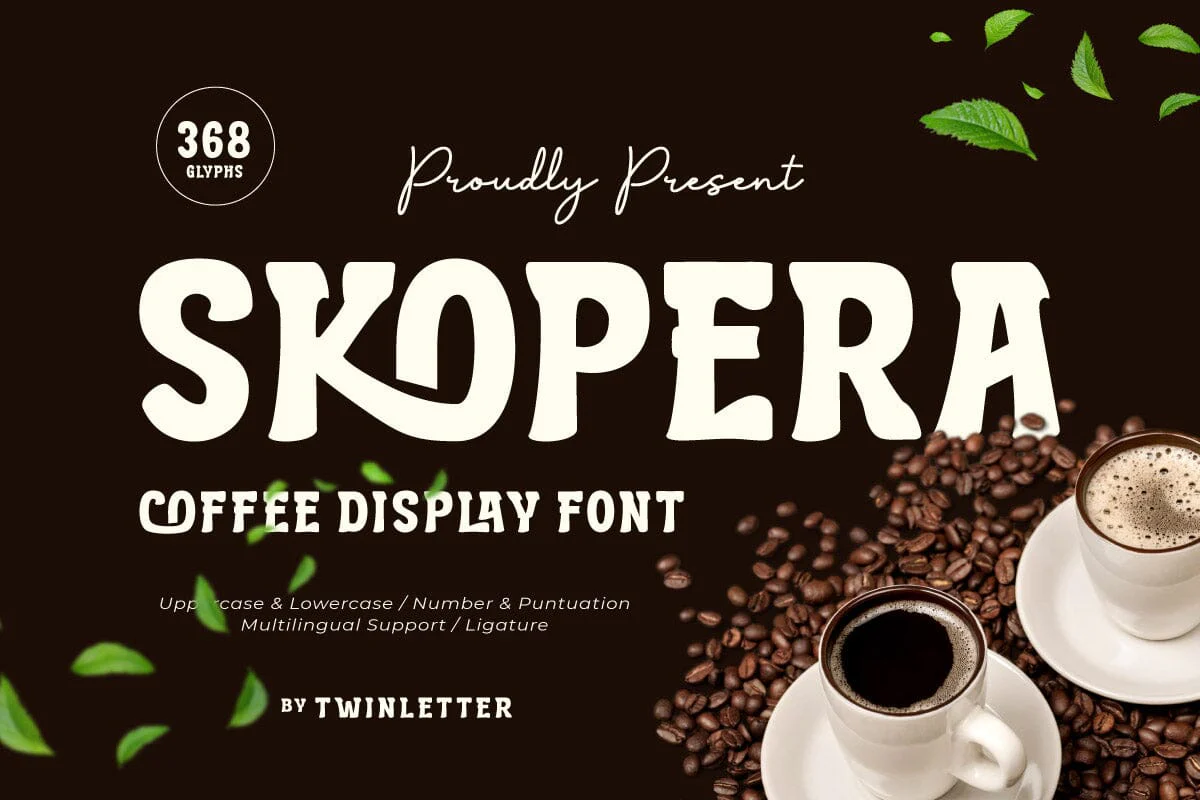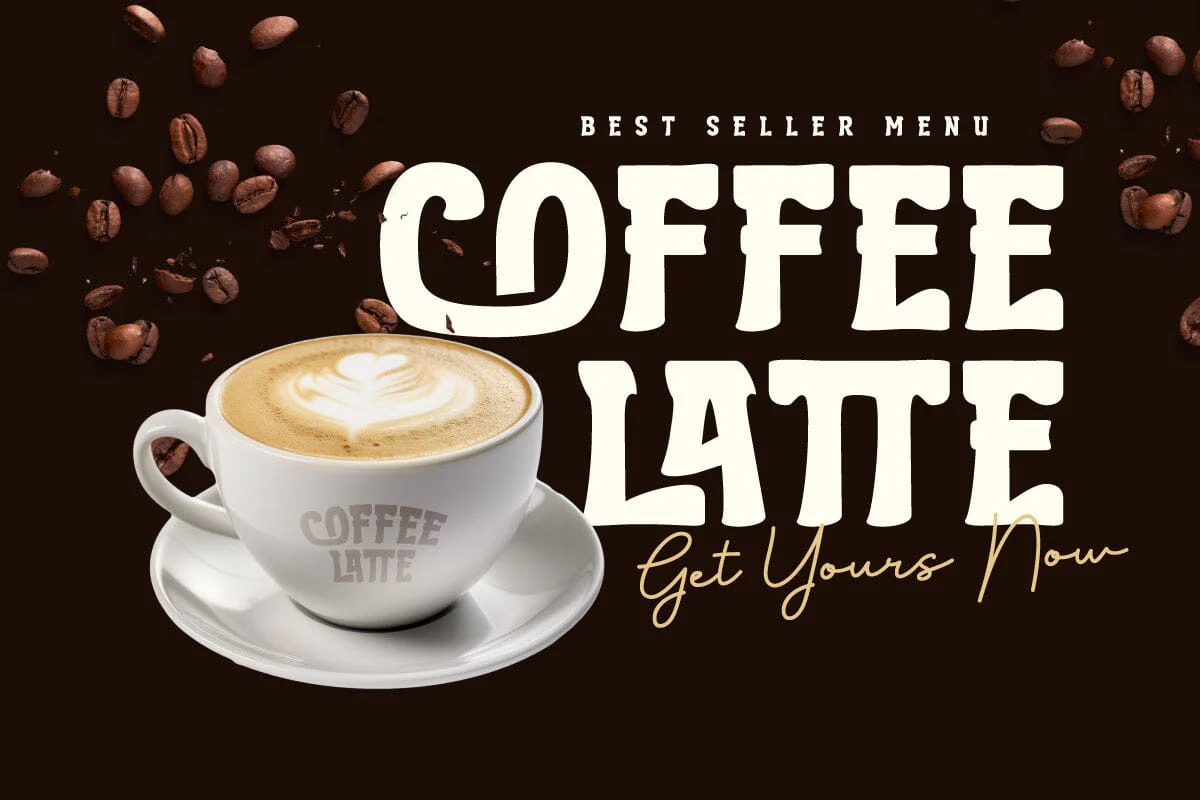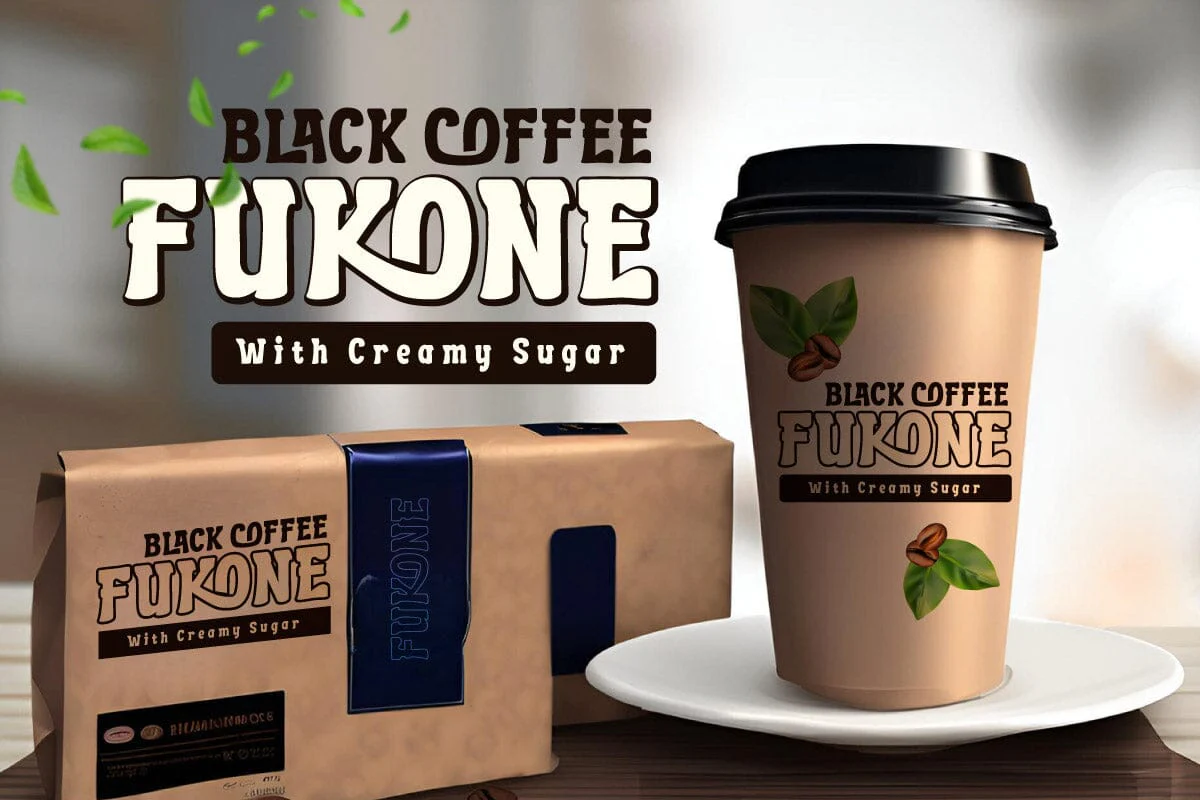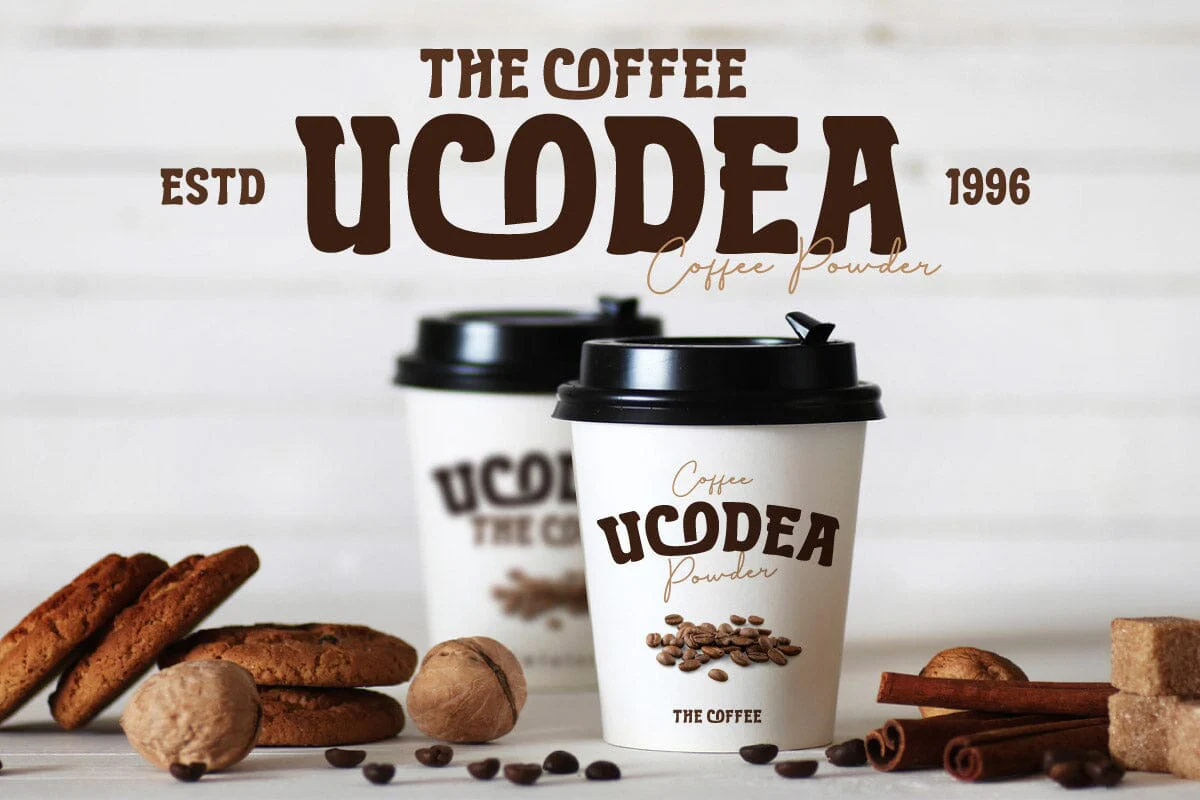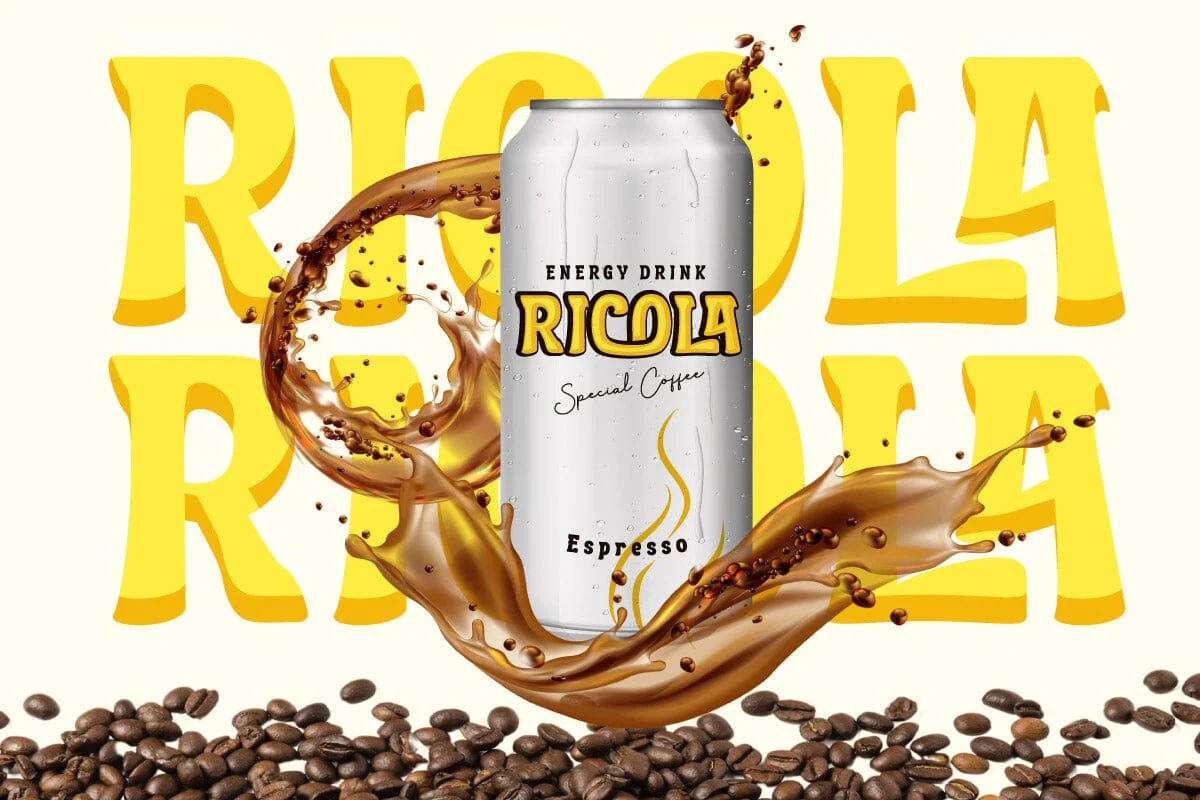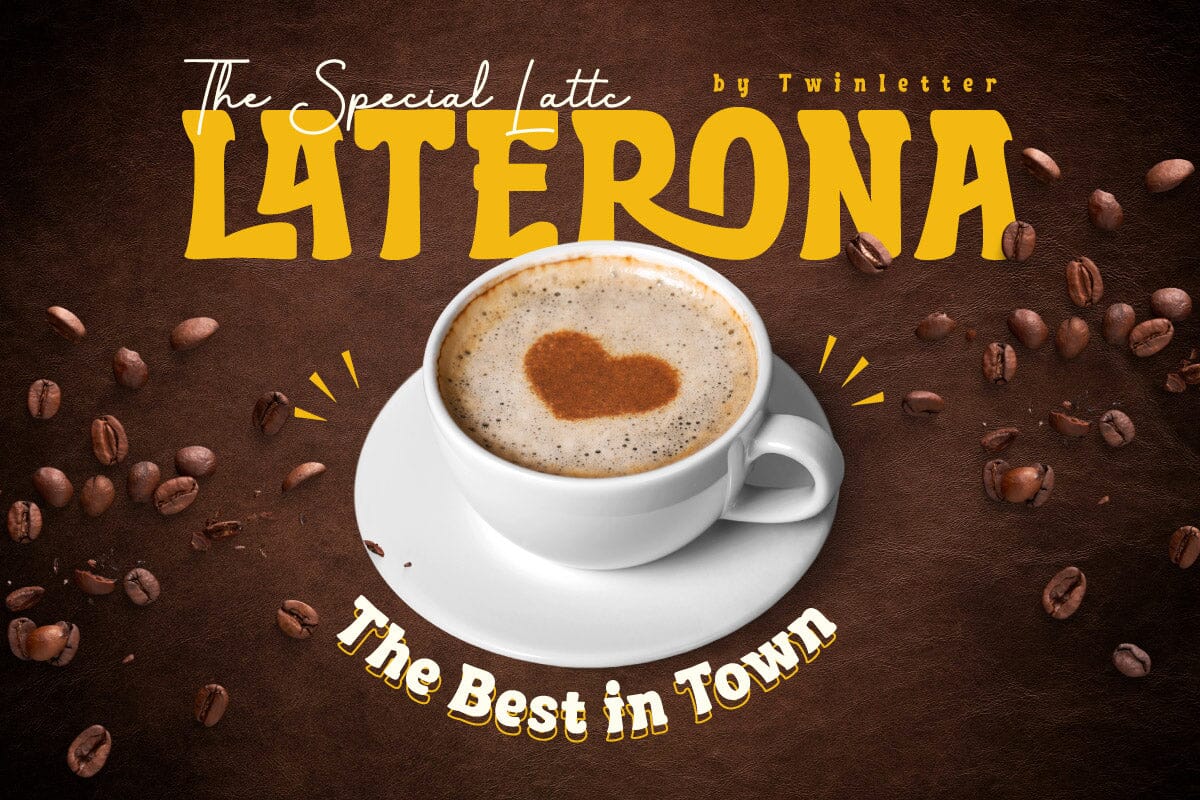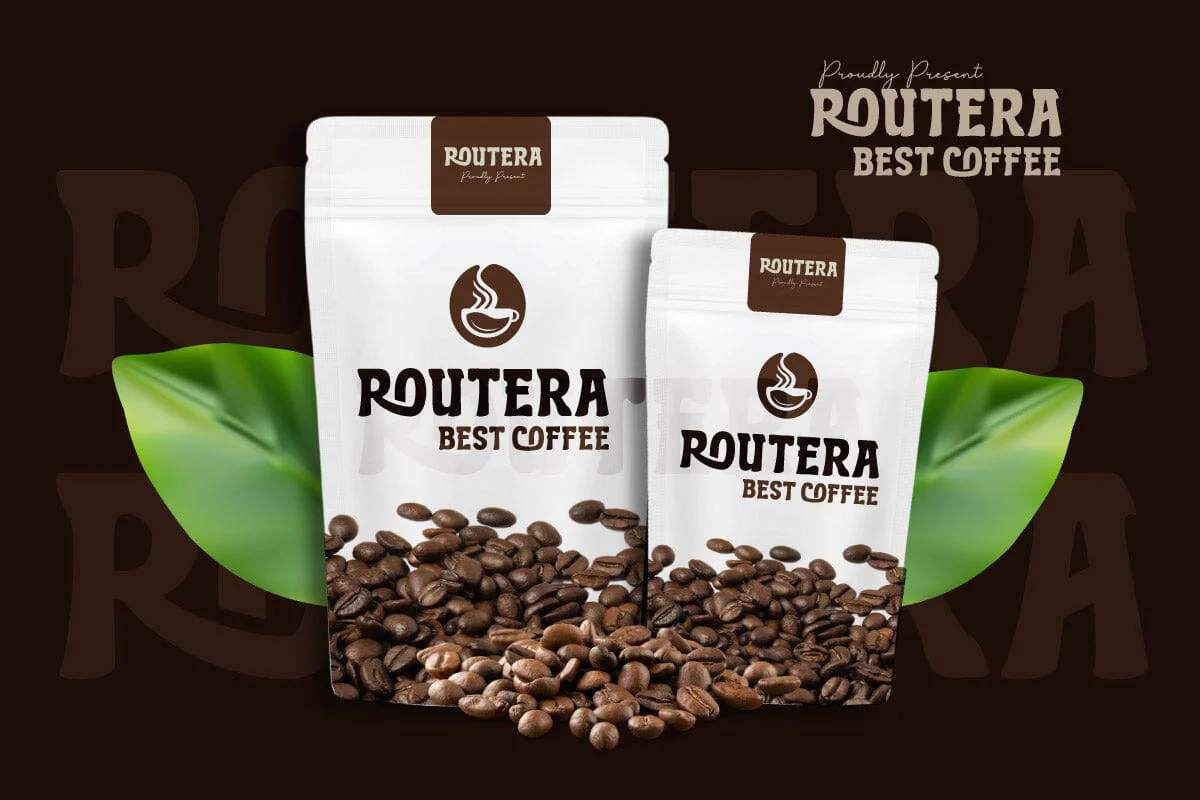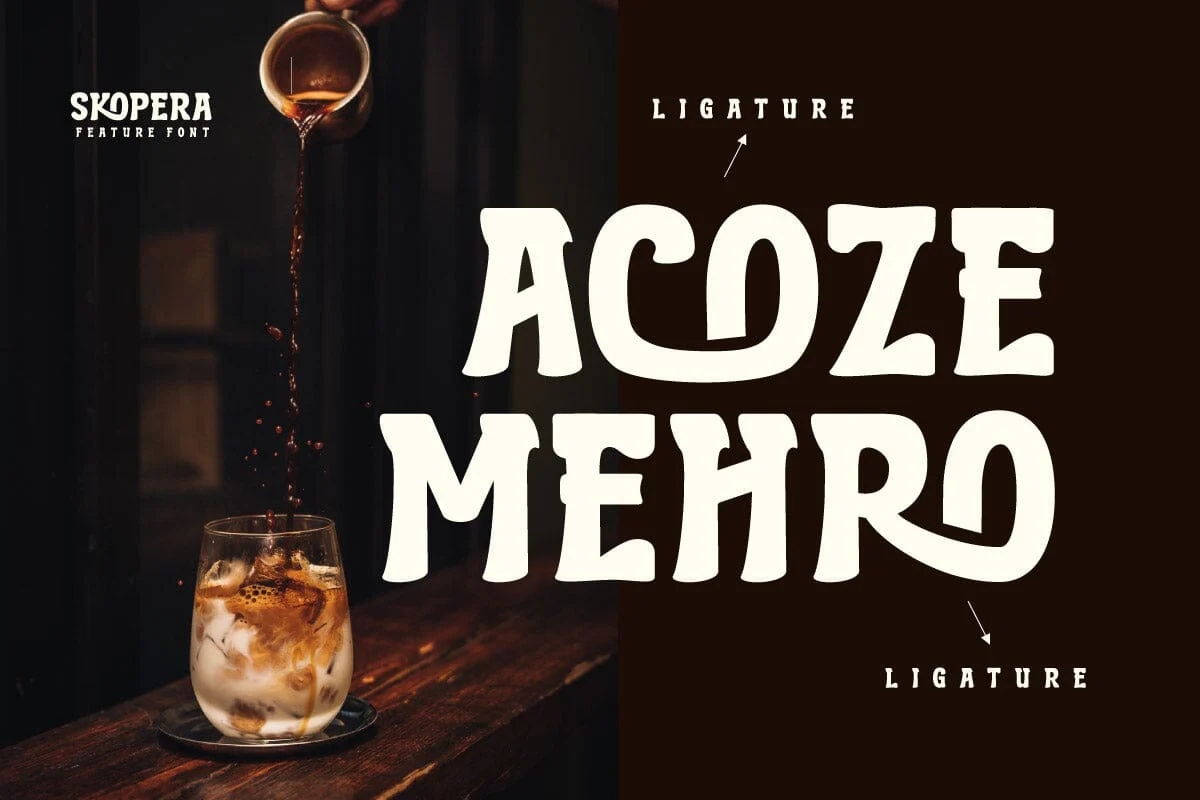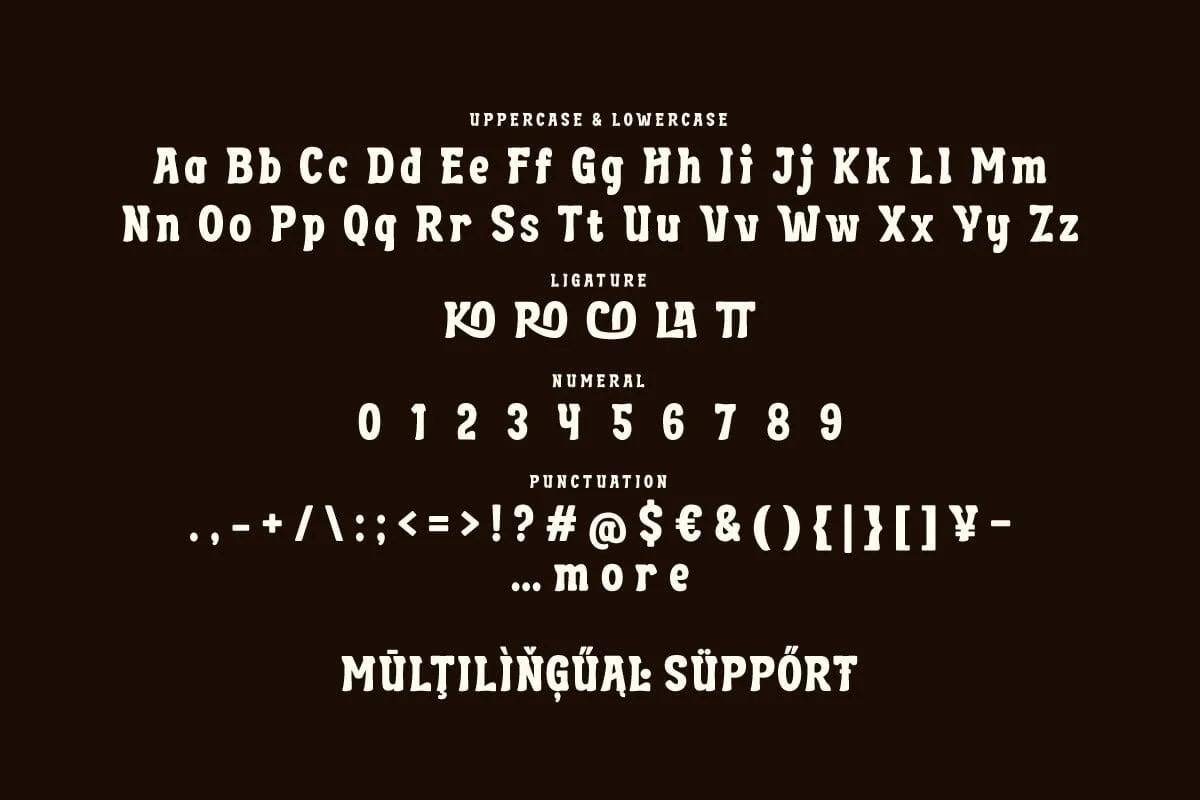
Skopera - Coffee Display Font
Indulge in the cozy charm of Skopera, the perfect Coffee Display Font for all your café-inspired designs. Skopera blends elegant curves with playful elements, capturing the warm and inviting essence of your favorite coffee shop. Ideal for café menus, branding, packaging, and promotional materials, this font infuses your projects with sophistication and comfort.
Each letter is designed to evoke the aroma and ambiance of a freshly brewed cup, making your designs resonate with coffee lovers everywhere. Whether you're crafting a rustic café menu or stylish coffee packaging, Skopera adds a touch of elegance and warmth that delights the senses.